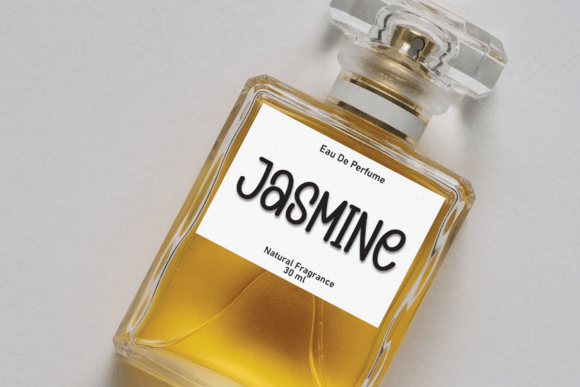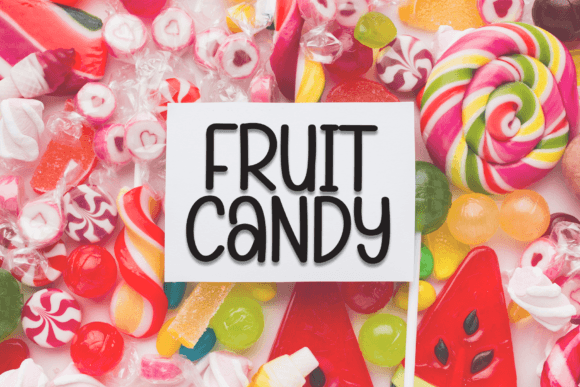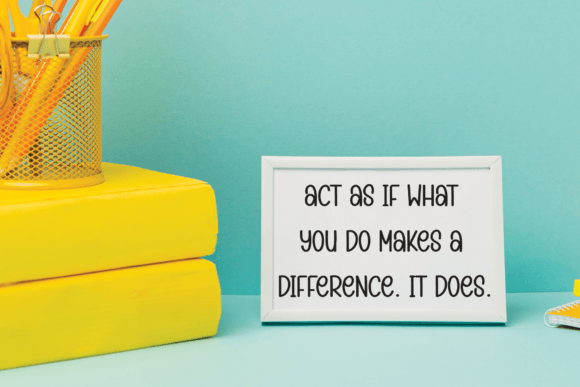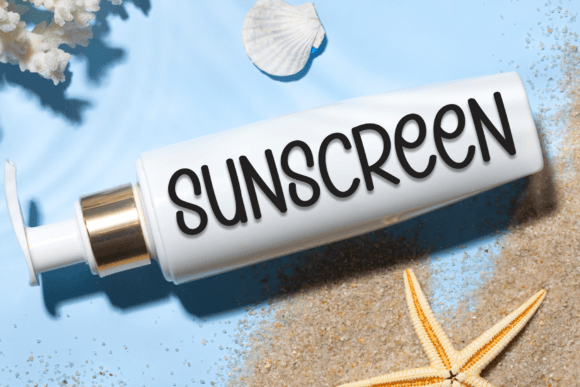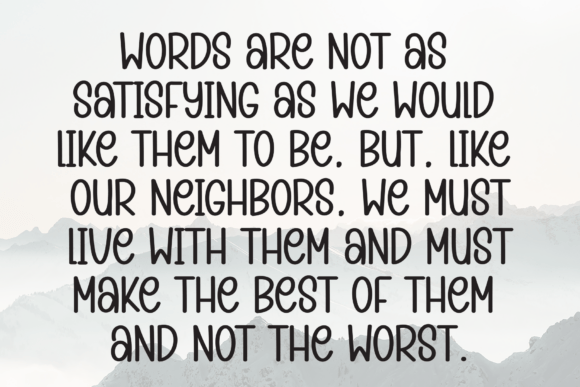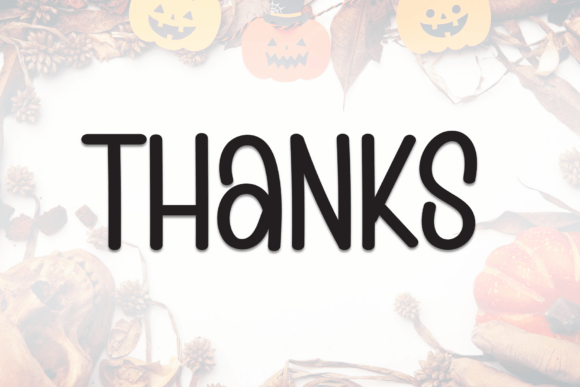
Introducing Halloween Font: A Delightful Handwritten Font for Whimsical Designs
Are you looking for a font that exudes charm, warmth, and playfulness? Look no further than the Halloween font, a distinctly delightful handwritten font that’s perfect for a wide range of design projects. With its enchanting blend of sweetness and friendliness, this font is sure to add a touch of magic to any layout.
A Font that’s Bursting with Charm and Warmth
The Halloween font is a true gem, bursting with charm and warmth that’s sure to captivate your audience. Its handwritten style gives it a personal and approachable feel, making it perfect for designs that require a touch of whimsy and playfulness. Whether you’re creating wedding invitations, greeting cards, or any other type of design, this font is sure to bring a smile to people’s faces.
Perfect for Whimsical Wedding Invitations and Playful Greeting Cards
One of the standout features of the Halloween font is its versatility. It’s perfect for a wide range of design projects, from whimsical wedding invitations to playful greeting cards. Imagine creating beautiful wedding invitations that set the tone for a romantic and fun celebration. Or, picture sending playful greeting cards to friends and family that showcase your personality and style. With the Halloween font, you can create designs that are both visually stunning and emotionally resonant.
Craft Your Magical Design Moments
The Halloween font is more than just a font – it’s a design tool that can help you craft magical moments. With its delightful and charming style, you can add an extra sprinkle of fun and joy to any beautiful layout. Whether you’re a designer, crafter, or DIY enthusiast, this font is sure to inspire you to create something truly special.
Why Choose the Halloween Font?
So, why choose the Halloween font over other fonts? Here are just a few reasons why this font stands out:
- Unique and distinctive style: The Halloween font has a unique and distinctive style that’s sure to set your designs apart from the crowd.
- Versatile: This font is perfect for a wide range of design projects, from wedding invitations to greeting cards and more.
- Easy to read: Despite its playful style, the Halloween font is easy to read and understand, making it perfect for designs that require a clear and concise message.
- Customizable: With the Halloween font, you can customize your designs to fit your unique style and brand.
Tips for Using the Halloween Font
Here are a few tips for using the Halloween font in your designs:
- Use it sparingly: While the Halloween font is delightful, it’s best to use it sparingly to avoid overwhelming your design.
- Pair it with other fonts: Consider pairing the Halloween font with other fonts to create a unique and visually appealing design.
- Experiment with colors: The Halloween font looks great in a variety of colors, so don’t be afraid to experiment and find the perfect hue for your design.
In conclusion, the Halloween font is a distinctly delightful handwritten font that’s perfect for designers, crafters, and DIY enthusiasts. With its enchanting blend of sweetness and friendliness, it’s sure to add a touch of magic to any layout. Whether you’re creating whimsical wedding invitations, playful greeting cards, or any other type of design, this font is sure to inspire you to create something truly special. So why wait? Download the Halloween font today and start crafting your magical design moments!